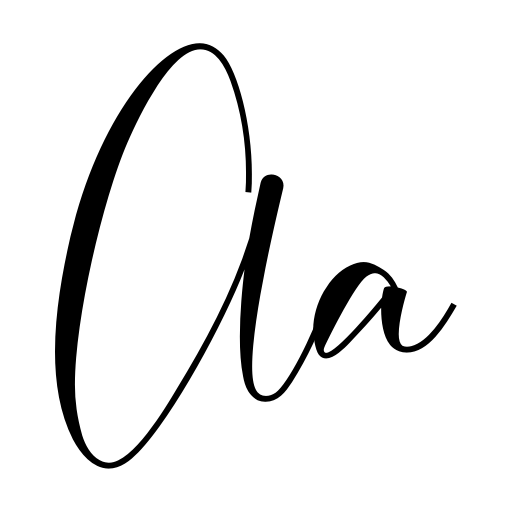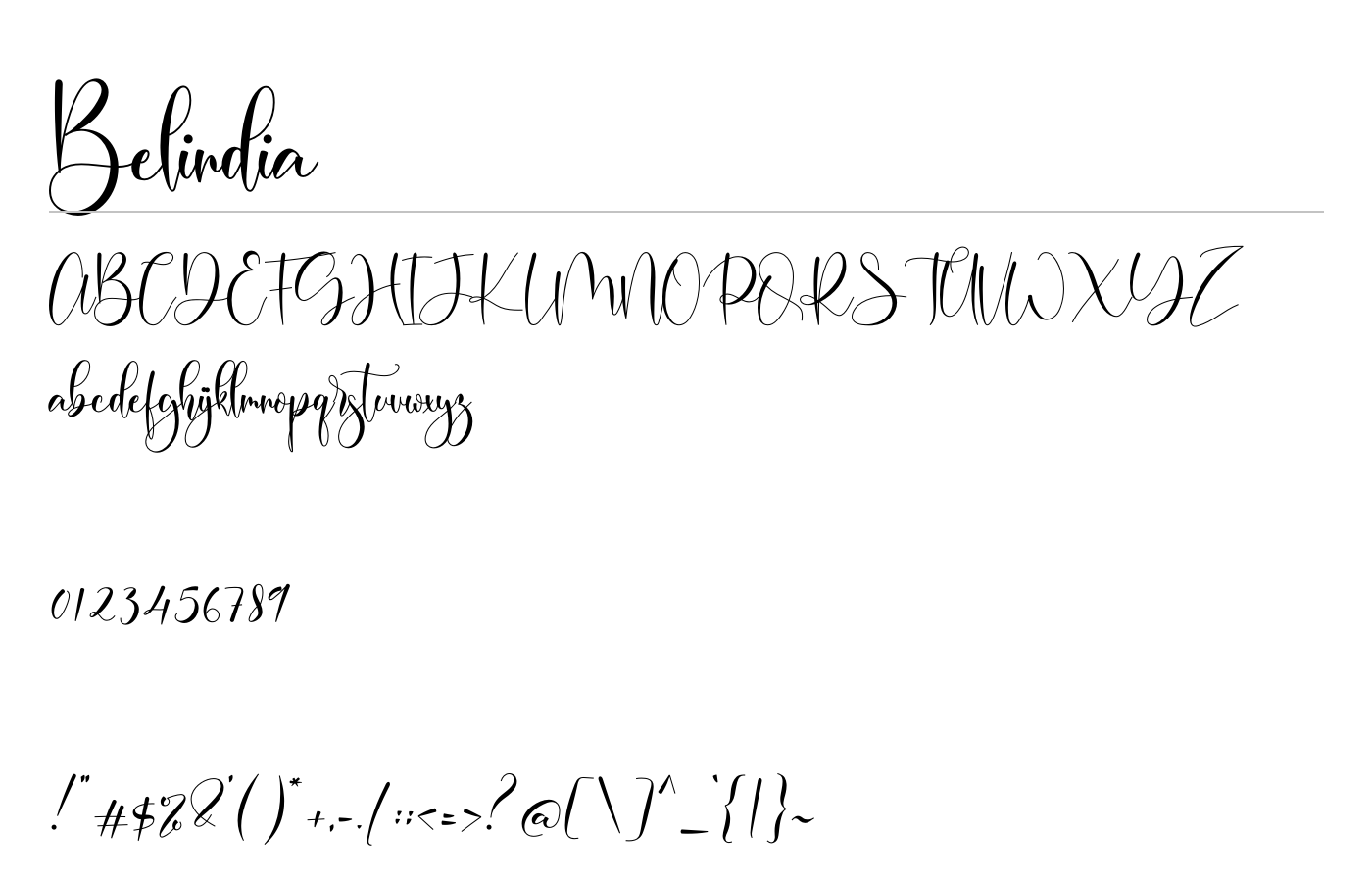
Belindia is a delicate and expressive script font featuring elegant, flowing strokes with a natural hand-drawn feel. Its tall, slender letterforms and playful curls create a sophisticated yet approachable style, perfect for adding a personal, artistic touch to wedding invitations, branding, and elegant design projects. This font shines in uses where a graceful, feminine personality is desired, especially in headlines, logos, and decorative text.
Belindia Font
About Belindia Font
| Font family | Belindia Font |
| Designer | Nissa Nana |